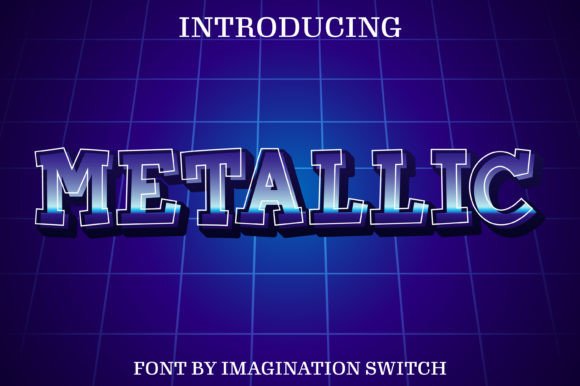
Unleash Your Creativity with Metallic Font: A Colorful Symphony for Your Visual Masterpieces
Embark on a captivating typographic journey with Metallic Font, a vibrant creation that harmonizes intriguing colors with meticulous design. This remarkable font family, meticulously crafted by Imagination Switch, offers a complete set of characters, including uppercase, lowercase, and numbers, providing unparalleled flexibility for your diverse projects.
Immerse yourself in a world of visual splendor as you witness how Metallic Font transforms your designs into mesmerizing masterpieces. Each character is adorned with carefully chosen colors, adding a touch of enchantment to every word and number. This font is not merely a collection of letters and symbols; it's an artistic expression that breathes life into your creative endeavors.
Whether you're designing for print, web, or promotional materials, Metallic Font stands as an exceptional choice. Its exceptional legibility and visually captivating presentation ensure that your message is delivered with clarity and impact. This font is your gateway to crafting unforgettable designs that leave a lasting impression.
With Metallic Font, you become the conductor of your own creative symphony, orchestrating a breathtaking fusion of colors and forms. Every project you undertake becomes an opportunity to showcase your unique artistry, leaving your audience spellbound by the visual spectacle you create.
Embrace the allure of Metallic Font and embark on a journey of artistic exploration. Experience the transformative power of color as it elevates your designs to new heights of visual enchantment. Let your creativity soar as you craft stunning masterpieces that captivate and inspire.